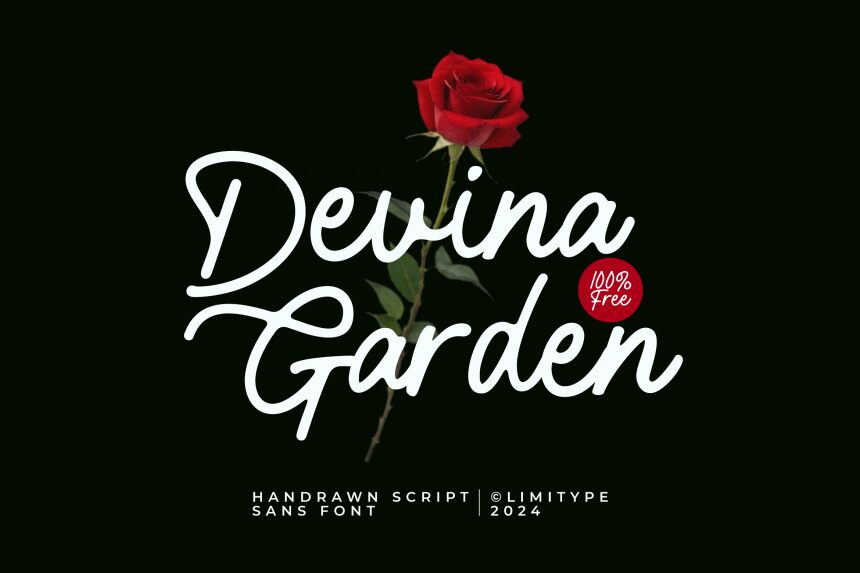
Devina Garden Regular
Devina Garden font, designed by Randi Ilhamsyah and Muhammad Muammar, captures the essence of fluid elegance with its whimsical handwritten style. The sweeping curves and playful strokes evoke a sense of nature’s spontaneity, inviting warmth and approachability into any design.
Visually striking, this font carries an expressive charm that makes it perfect for branding efforts that seek to connect on a personal level. Its unique forms are both inviting and stylish, making it suitable for everything from wedding invitations to artisanal product labels.
Whether you’re crafting heartfelt notes or designing vibrant promotional materials, Devina Garden enhances creativity while ensuring your message resonates beautifully with audiences. Its captivating presence is sure to leave a memorable impression across various mediums.